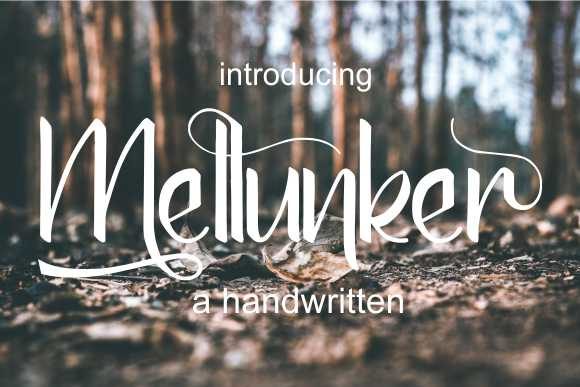
Mellunker Font
Introducing Mellunker Font: A Captivating Handwritten Masterpiece That Evokes Elegance and Charm
In a world saturated with digital monotony, Mellunker Font emerges as a refreshing oasis of creativity and beauty. This enchanting handwritten font, meticulously crafted by the talented husnant9, is a testament to the power of individuality and the allure of the written word. With its graceful strokes and elegant curves, Mellunker Font invites you to embark on a journey of self-expression, transforming your digital creations into captivating works of art.
Step into a Realm of Feminine Allure and Chic Sophistication
Mellunker Font exudes an aura of femininity and chic sophistication that is sure to captivate the hearts of discerning designers. Its delicate lines and flowing characters evoke a sense of grace and refinement, making it the perfect choice for projects that demand a touch of elegance. From wedding invitations and greeting cards to fashion blogs and lifestyle magazines, Mellunker Font adds a dash of timeless charm and sophistication to any design.
Unleash Your Creativity with Endless Possibilities
With Mellunker Font, the creative possibilities are boundless. Its versatility extends from personal projects to professional endeavors, making it a font that seamlessly adapts to your ever-changing needs. Whether you're designing social media posts, website headers, or eye-catching logos, Mellunker Font has the power to transform your words into captivating visual masterpieces. Its unique style adds a touch of personality and charm to any project, leaving a lasting impression on your audience.
Experience the Beauty of Handwritten Elegance
Mellunker Font embraces the beauty of handwritten expression, bringing a touch of authenticity and warmth to your digital creations. Its organic forms and natural flow mimic the beauty of hand-lettering, evoking a sense of intimacy and connection. Whether you're creating invitations for a special occasion or crafting heartfelt messages for loved ones, Mellunker Font adds a personal touch that resonates with your audience.